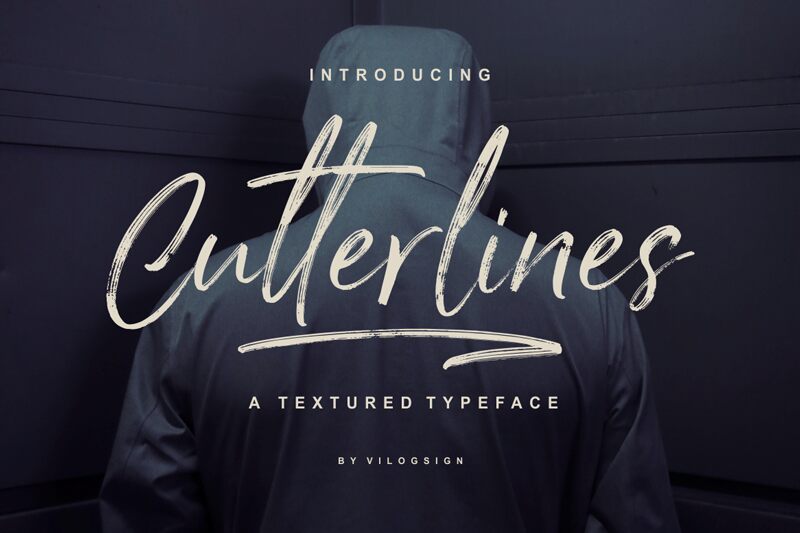
Introducing the new Cutterlines!!! Font and extras.
a bold, rustic, textured, A teture typeface script font with 3 set of lowercase letters alternatives and 9 ligatures to complete your needs.
With add extra brush vector and coffee vector make your job to be complete and easy.
This font is very good with multilingual support. With built in Opentype features, this script comes to life as if you are writing it yourself.
I make this font with lovely so make this font look natural, classic and elegant, very suitable to make a branding, magazine, fashion, quotes, logo, packaging, and other.